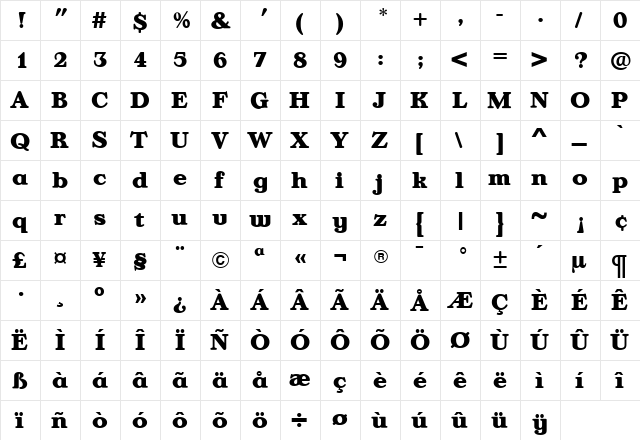
AppleyardBold Roman
Design Context for AppleyardBold Typeface
AppleyardBold offers clean, dependable letterforms without strong stylistic allegiance, making it a practical choice for designers who need flexibility. The heavy weight commands attention and anchors typographic hierarchies.